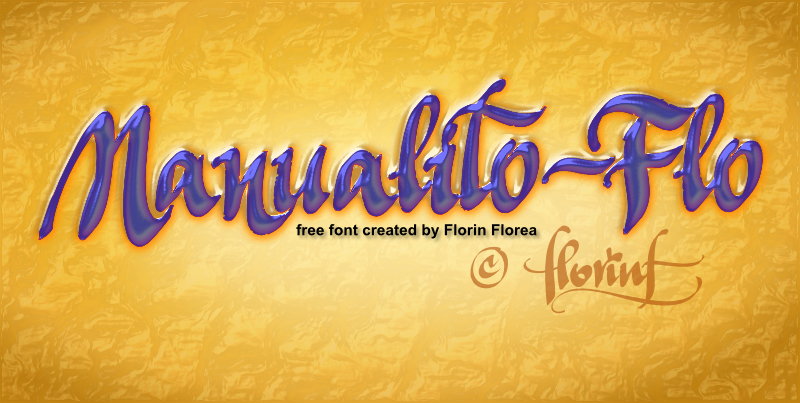
Preview and download Manualito Flo Font. Created by Florin Florea in Script Brush styles with Free for personal use license.
This font is free for personal usage only. If you plan to use it commercially please write me on the email address from the README file inside archive. Font created using my handwriting and a digital brush. It may need some kerning adjustments. Feel free to comment. Thanks. |